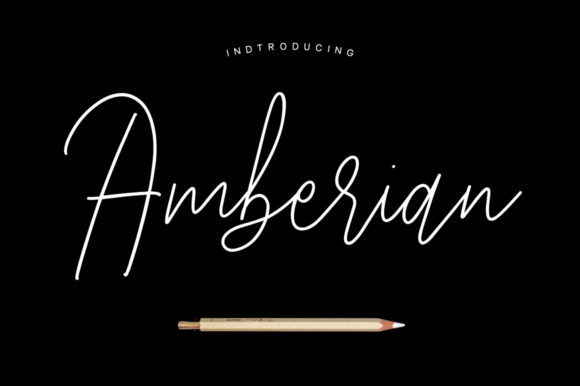
Introducing Amberian Font: The Perfect Blend of Elegance and Sophistication
In the world of typography, fonts play a crucial role in conveying the tone and personality of a brand. For designers and crafters, finding the right font can make all the difference in creating stunning visual content. If you’re on the hunt for a font that exudes elegance, sophistication, and versatility, look no further than Amberian Font. This masterfully designed script font is a true must-have for anyone looking to elevate their design game.
The Unique Characteristics of Amberian Font
Amberian Font is a beautiful blend of a great sans serif and a stunning script font. At first glance, it may appear thin, but don’t let its delicate appearance fool you. This font is packed with sophistication and style, making it perfect for a wide range of design applications. Whether you’re working on logos, branding, packaging design, or any other project that requires a touch of elegance, Amberian Font is an excellent choice.
What Makes Amberian Font Stand Out?
So, what sets Amberian Font apart from other fonts on the market? Here are just a few reasons why this font is a cut above the rest:
- Unique Blend of Sans Serif and Script Fonts: Amberian Font combines the clean lines and simplicity of a sans serif font with the elegance and flair of a script font. This blend creates a truly unique and captivating visual effect that’s sure to grab attention.
- Versatility: Whether you’re designing a logo, brochure, or packaging, Amberian Font adapts seamlessly to any design style or format. Its versatility makes it an excellent addition to any designer’s toolkit.
- Elegance and Sophistication: Amberian Font exudes a sense of refinement and poise, making it perfect for high-end brands, luxury products, or any design project that requires a touch of sophistication.
How to Use Amberian Font in Your Designs
Amberian Font is incredibly easy to use and can be applied to a wide range of design projects. Here are a few ideas to get you started:
- Logo Design: Create a stunning logo that showcases your brand’s personality and style with Amberian Font.
- Branding and Identity: Use Amberian Font to develop a consistent visual identity across all your marketing materials, from business cards to letterheads.
- Packaging Design: Add a touch of elegance to your product packaging with Amberian Font, perfect for luxury goods, cosmetics, or food products.
- Stationery and Invitations: Create beautiful stationery, invitations, or greeting cards that showcase your design skills and attention to detail.
Why Designers and Crafters Love Amberian Font
Designers and crafters around the world have fallen in love with Amberian Font, and it’s easy to see why. Here are just a few reasons why this font has become a favorite among creative professionals:
- High-Quality Design: Amberian Font is meticulously crafted with attention to detail, ensuring a high-quality design that will elevate any project.
- Easy to Read: Despite its elegant appearance, Amberian Font is surprisingly easy to read, making it perfect for body text or captions.
- Customizable: Experiment with different colors, sizes, and styles to make Amberian Font your own and adapt it to your unique design needs.
In conclusion, Amberian Font is a true gem in the world of typography. Its unique blend of sans serif and script fonts, elegance, and sophistication make it a must-have for designers and crafters looking to create stunning visual content. Whether you’re working on logos, branding, packaging design, or any other project, Amberian Font is sure to impress. With its versatility, readability, and customizability, this font is an excellent addition to any designer’s toolkit. So why wait? Get your hands on Amberian Font today and take your designs to the next level!